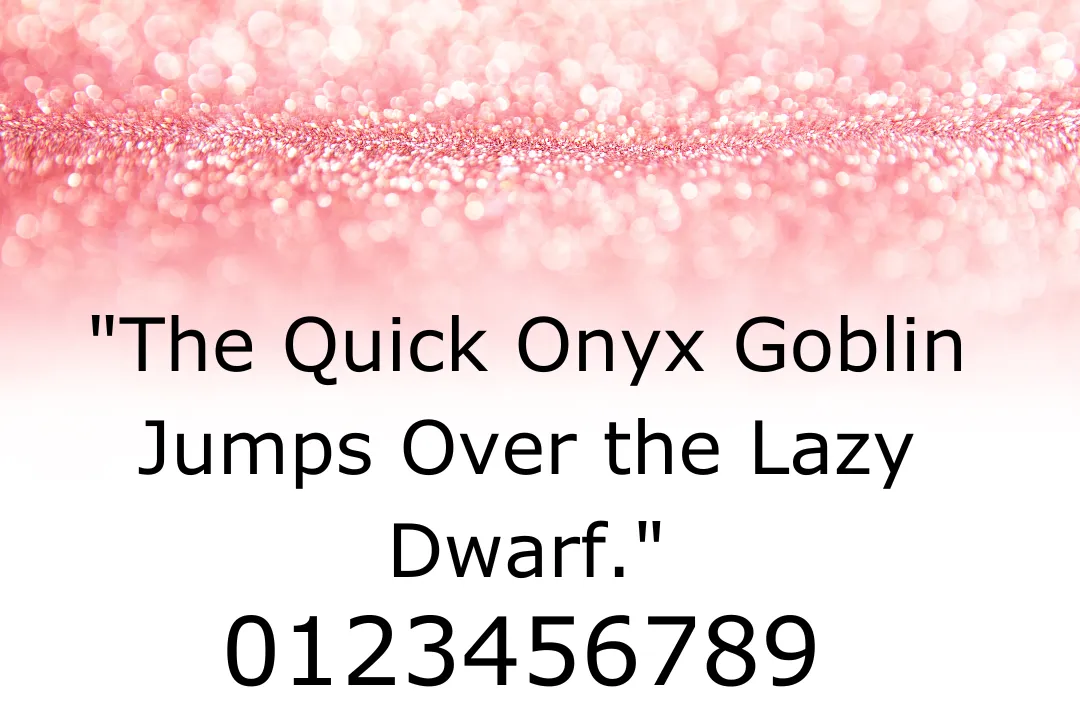
Verdana Font
Verdana Font is a very modern and popular typeface that belongs to the sans-serif category. The main designer of this stunning family was Matthew Carter. He is a very intelligent typographic designer. This marvelous typeface is best for use on all small text screens.
The most popular company IKEA uses this family for its logo designs. At this time, this typeface is available in version 5.31. Verdana font comes in 4 different and classic versions including Verdana, Bold, Regular, and Bold TTF. All these versions have various characters.
In 1996, this family was released for the first time through a famous Microsoft Company and It has gained popularity since it was released.
Uses of  Verdana Font
Because of its advanced features, this typeface is most useful for various projects as compared to others. A great number of manufacturers use this family for many projects related to their fields such as invitations, headers, titles, and small texts. It is best for many print designs.
For video channels, you can also use this overwhelming typeface. You will achieve the best response from your audience. This typeface can also create beautiful logos for different institutions and organizations. You can also use its similar known as Calibre font which has the same characters and glyphs.
This stylish family is used in Microsoft Word, Adobe Photoshop, and different others. For different web designs like templates, Blogs it is the best choice. It is commonly used for making posters.
NameVerdana Font
DesignerMatthew Carter
Date1996
StyleSans Serif
Where we can use Verdana Font?
The uses of this font family are very classic and outstanding. You can use it in plenty of projects according to your requirements like poster makings, logos, banners, and so on.
Is Verdana Font best for my Logos designs?
Sure, you can use this font family for various types of logos. Different companies use this family for their logo designs.
Who is the creator of Verdana Font?
Matthew Carter is the brilliant mind behind this stylish typeface. He worked hard for the completion of this font family.
Can I use Verdana Font for my website?
Yes, surely this typeface is perfect for your website designs. When you use this font family it gives classic look to your website.